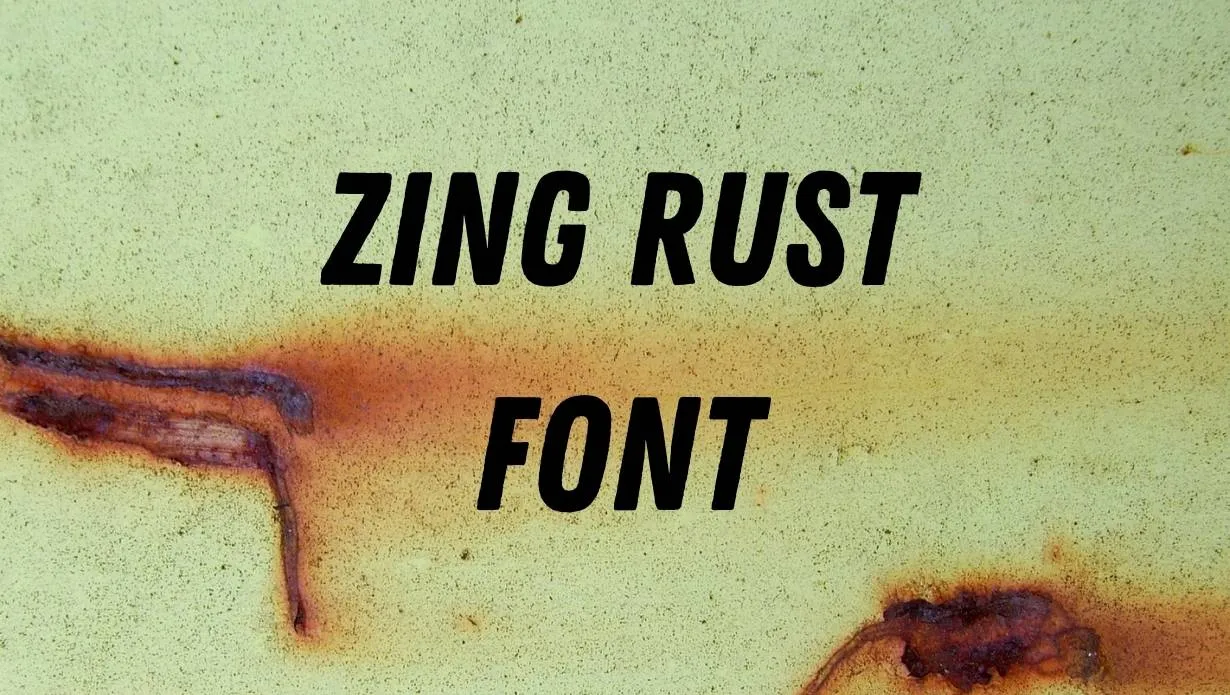
About Zing Rust Font Free Download
Zing Rust Font Free Download is a modern typeface available in multiple variants and styles.
- Zing Rust Font Regular
- Zing Rust Font Bold
- Zing Rust Font Italic